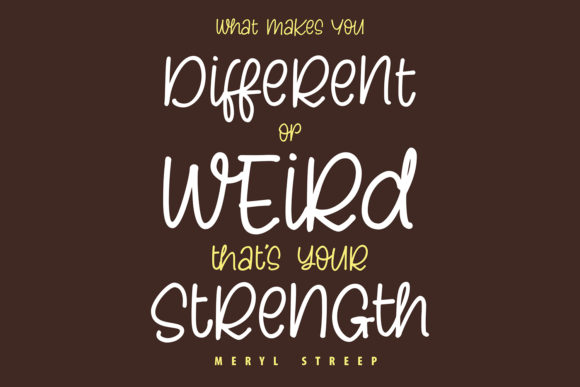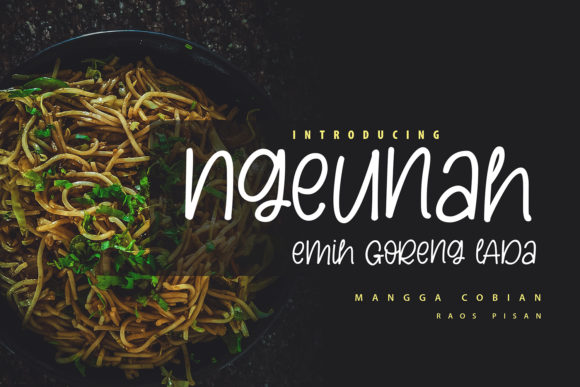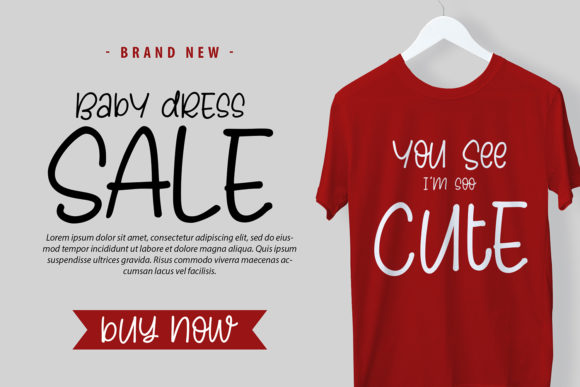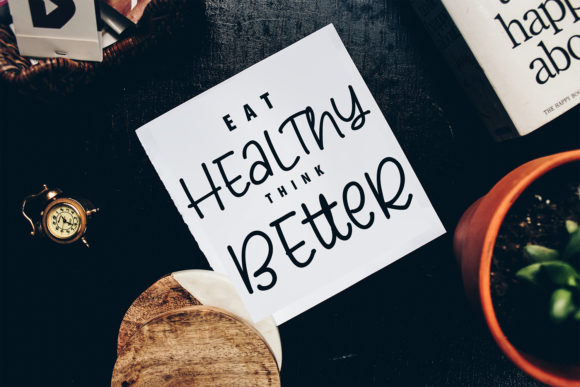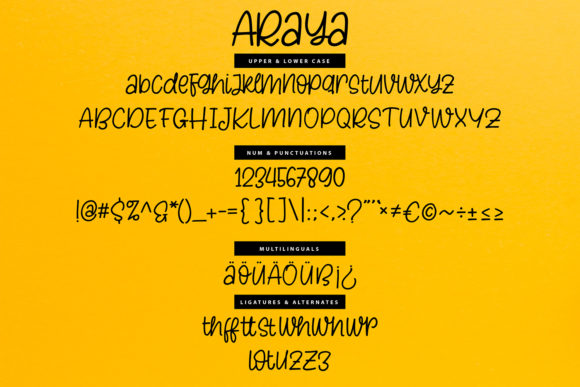
Araya Font: The Sweet and Fragile Handwritten Font for Your Design Needs
In the world of typography, fonts play a crucial role in making or breaking a design. A well-chosen font can elevate your project from ordinary to extraordinary. If you’re a designer or crafter looking for a font that exudes sweetness and fragility, look no further than Araya Font. In this article, we’ll dive into the world of Araya Font, exploring its features, benefits, and uses.
What is Araya Font?
Araya Font is a beautiful, handwritten font that has captured the hearts of designers and crafters alike. Its genuine characters and delicate strokes make it an ideal choice for creating lovely designs. Araya Font is perfect for those who want to add a touch of elegance and sophistication to their projects.
Features of Araya Font
Araya Font boasts several features that make it a standout in the world of typography. Some of its notable features include:
- Handwritten style: Araya Font has a beautiful, handwritten style that gives it a personal and unique touch.
- Genuine characters: Each character in Araya Font is carefully crafted to ensure that it looks genuine and authentic.
- Delicate strokes: The font’s delicate strokes add to its fragile and sweet appearance.
- Elegant look: Araya Font has an elegant look that makes it perfect for designs that require sophistication.
Benefits of Using Araya Font
So, why should you choose Araya Font for your design projects? Here are some benefits of using Araya Font:
- Unique designs: Araya Font helps you create unique designs that stand out from the crowd.
- Versatility: Araya Font is versatile and can be used for a wide range of design projects, from branding and advertising to packaging and more.
- Time-saving: With Araya Font, you can save time and effort in creating designs that look professional and elegant.
Uses of Araya Font
Araya Font is perfect for a wide range of design projects, including:
- Branding and advertising: Use Araya Font to create elegant and sophisticated branding and advertising materials.
- Packaging design: Add a touch of elegance to your packaging designs with Araya Font.
- Stationery design: Create beautiful stationery designs, such as business cards, letterheads, and more, with Araya Font.
- Digital design: Use Araya Font in your digital designs, such as website headers, social media graphics, and more.
Why Choose Araya Font?
So, why should you choose Araya Font over other fonts? Here are some reasons:
- Quality: Araya Font is of high quality, with genuine characters and delicate strokes.
- Uniqueness: Araya Font is unique and can help you create designs that stand out from the crowd.
In conclusion, Araya Font is a sweet and fragile handwritten font that is perfect for designers and crafters who want to create lovely designs. With its genuine characters, delicate strokes, and elegant look, Araya Font is an ideal choice for a wide range of design projects. Whether you’re creating branding and advertising materials, packaging designs, or digital designs, Araya Font is a great option. So, add it confidently to your projects, and you won’t be disappointed.
Araya Font is a great addition to any design project, and we highly recommend it to anyone looking for a unique and elegant font. With its ease of use, versatility, and high-quality design, Araya Font is sure to become a favorite among designers and crafters.